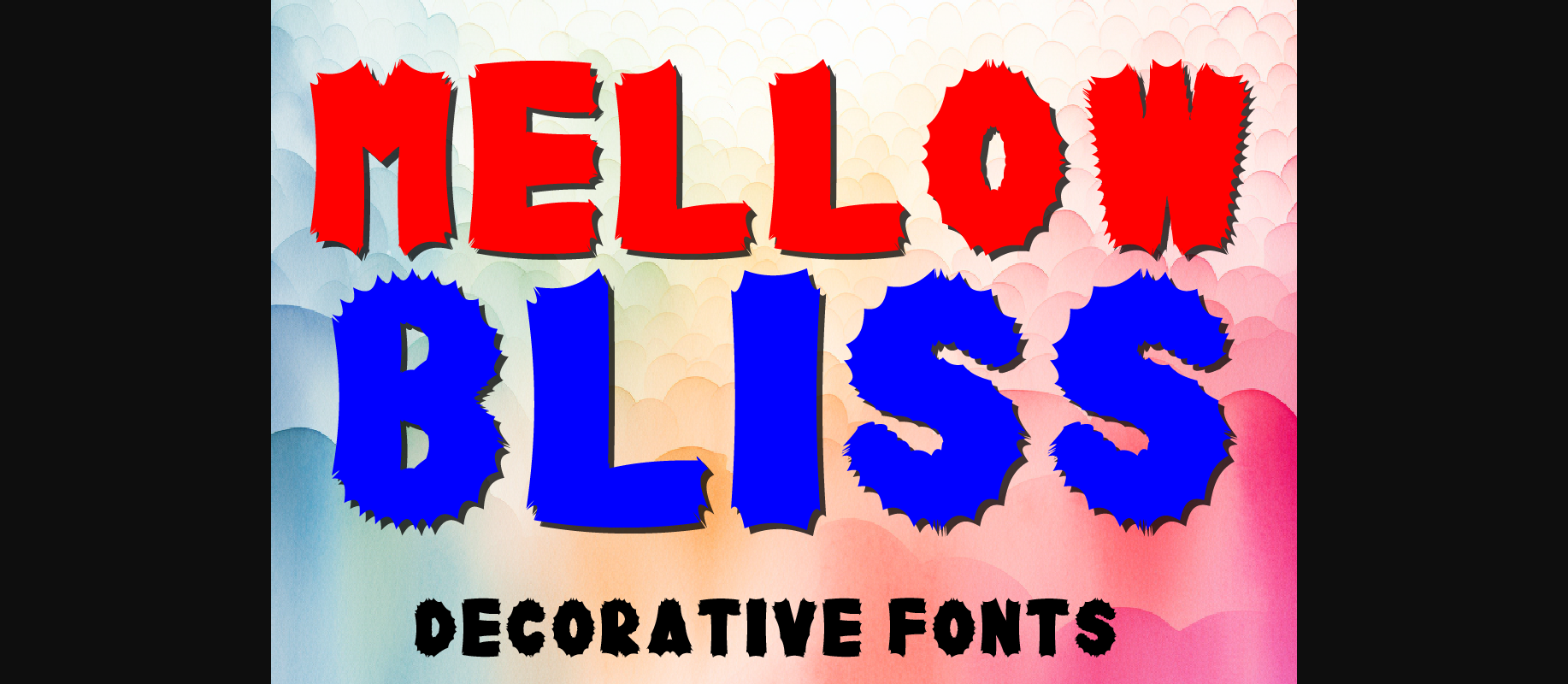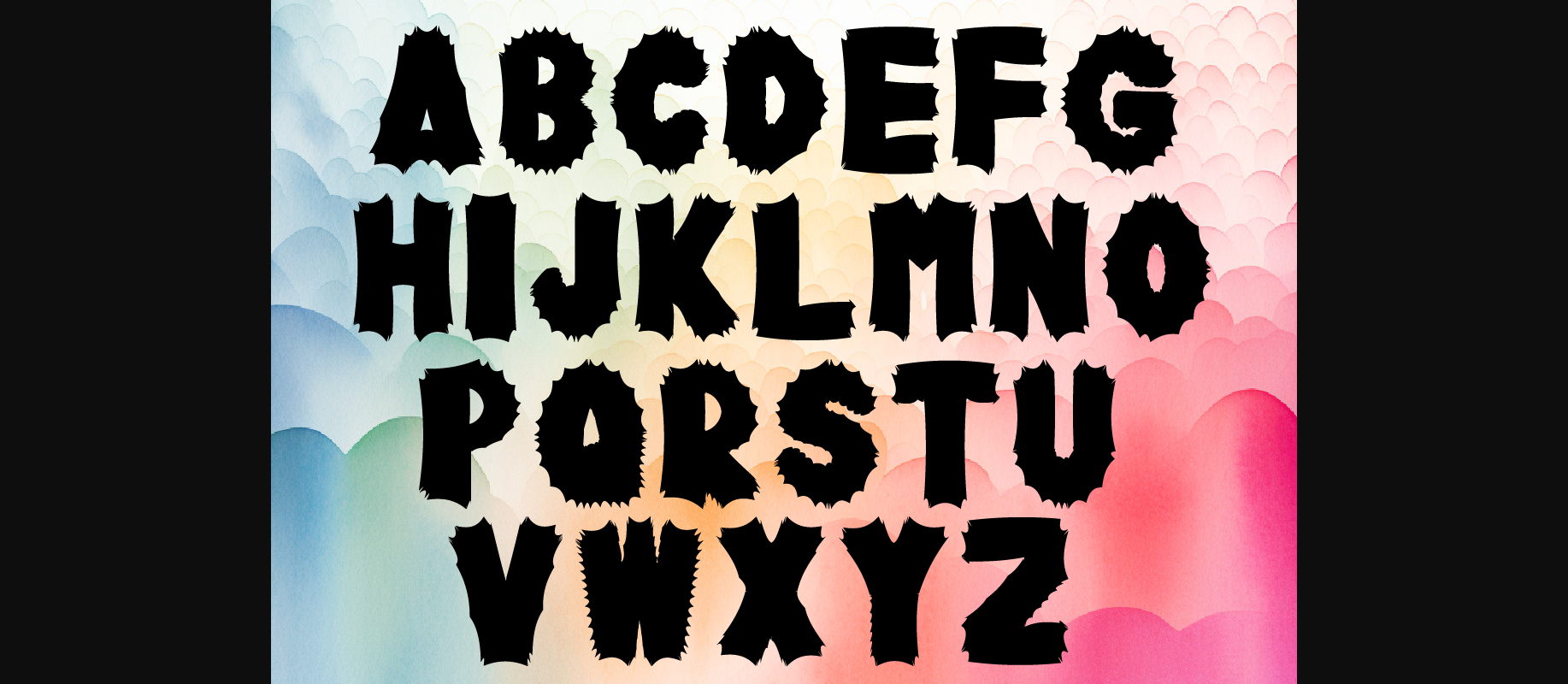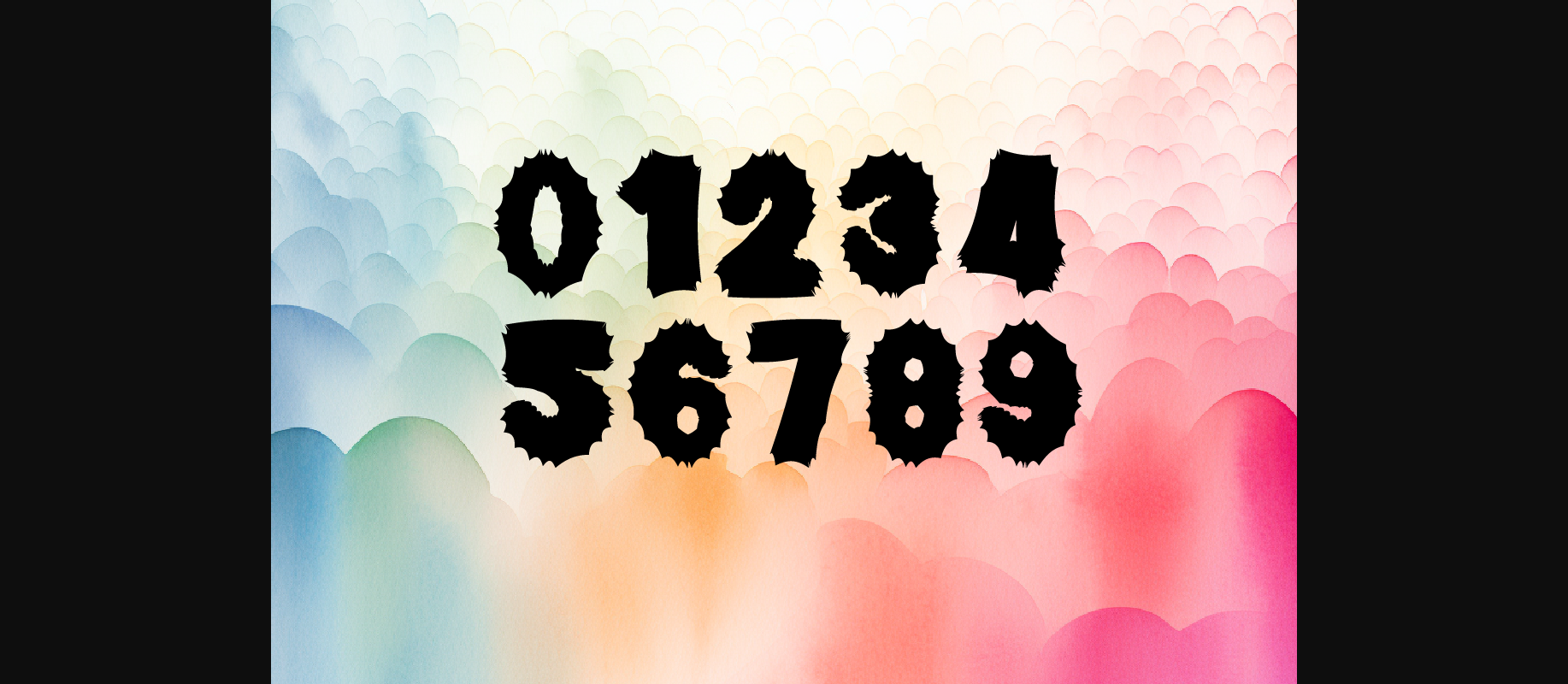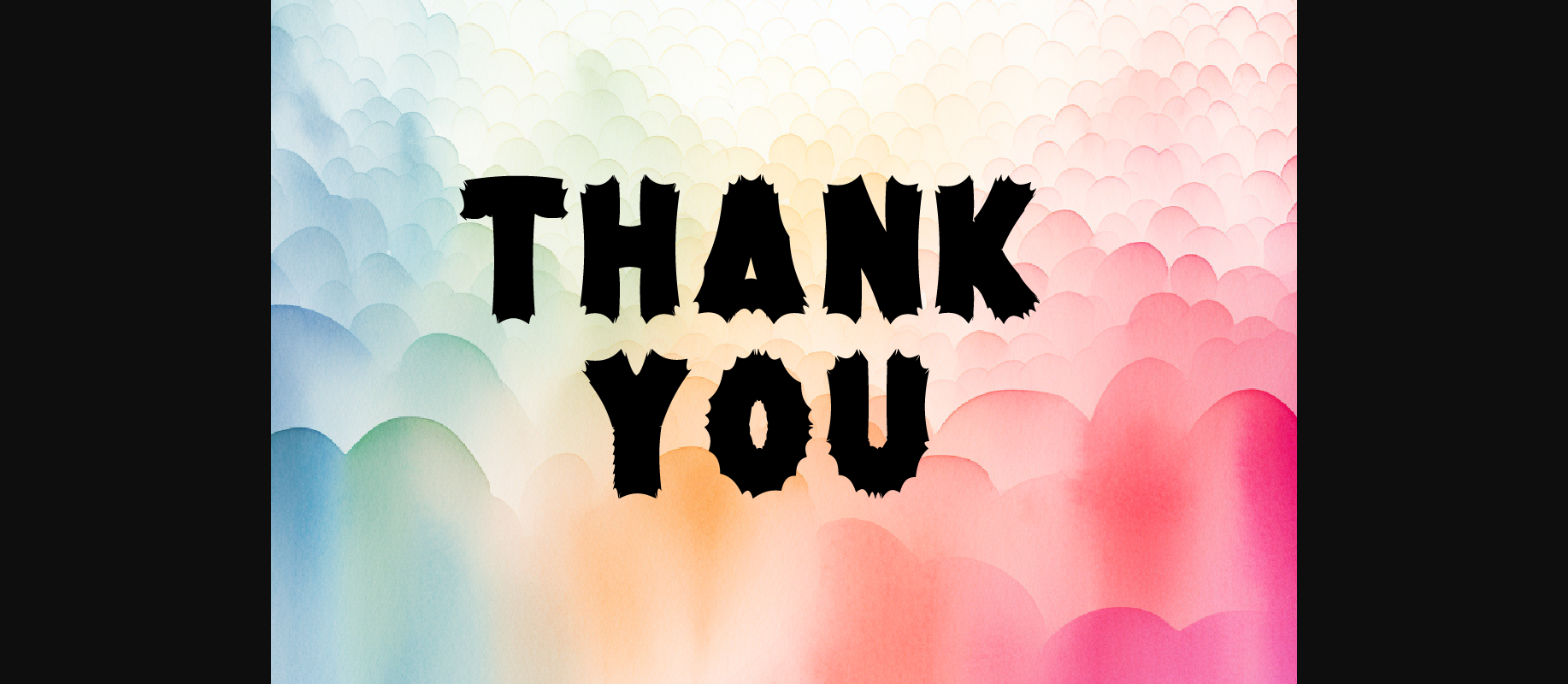
Mellow Bliss Font
About Mellow Bliss Font
Introducing “Mellow Bliss” Decorative Fonts, a versatile collection designed to elevate your creative projects. With 26 capital letters and 10 numbers 0-9, this font set offers endless possibilities for expression. Whether you’re designing posters, invitations, logos, or anything in between, Mellow Bliss can be seamlessly integrated into any project.
These fonts are meticulously crafted to add a touch of elegance and style to your work, making them suitable for a wide range of applications. From digital designs to printed materials, Mellow Bliss delivers exceptional quality and aesthetic appeal.